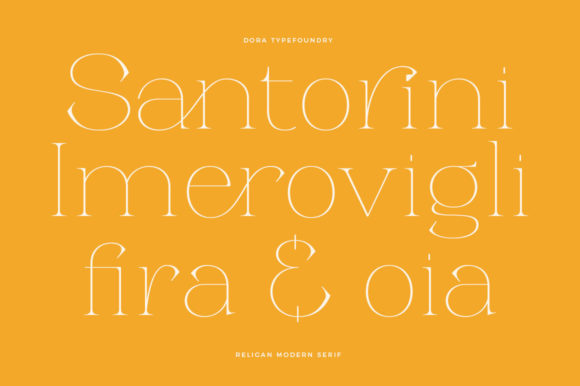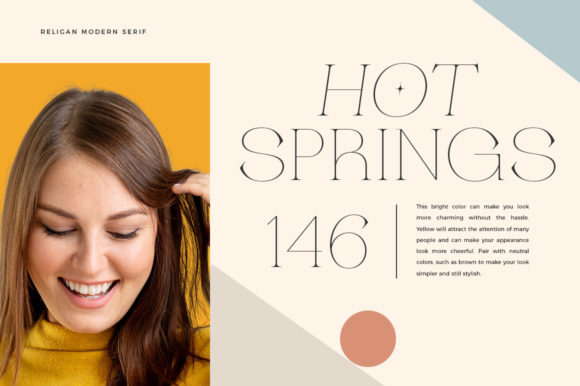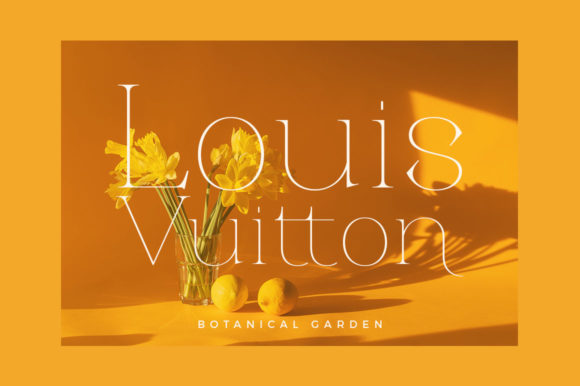
Introduction to Religan Font
Religan is a delicate and thin lettered serif font.
It is PUA encoded, which means that you can access all of the glyphs and swashes with ease Add it confidently to your projects, and you will love the results.